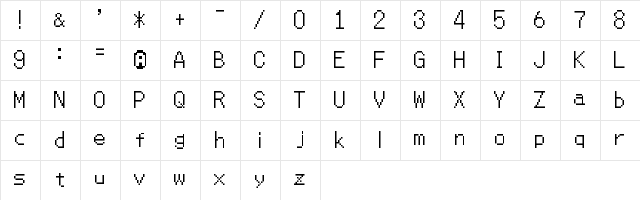
MMBNThin Regular
Design Context for MMBNThin Typeface
MMBNThin is a composed and adaptable typeface that performs quietly and consistently across a wide range of design contexts. Its slender proportions lend an understated elegance to any composition.